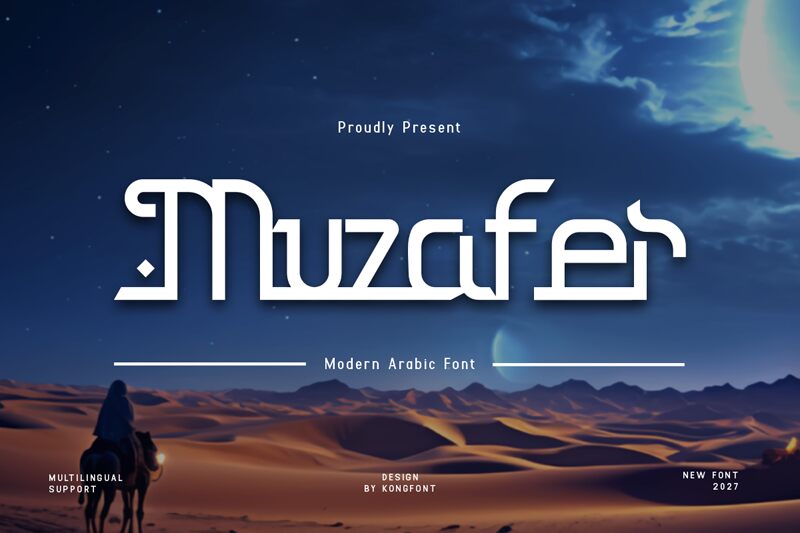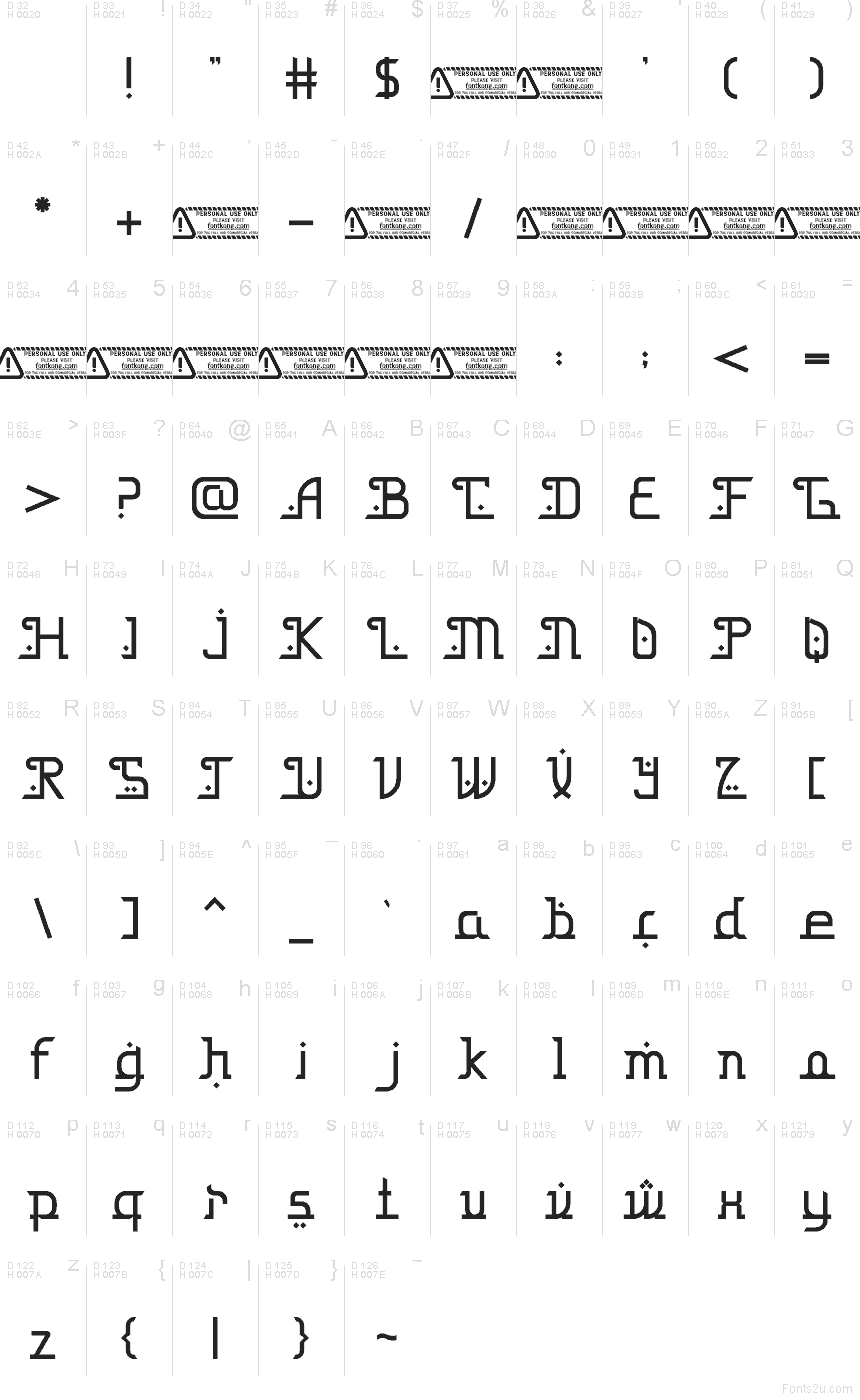
Muzafer font by Kong Font is a free faux Arabic foreign typeface that turns Latin letters into bold, calligraphic ribbons. Its blocky, interlocking strokes and hooked endings echo Middle Eastern signage, while the tight rhythm keeps words reading as strong, unified tiles. The result feels both ornamental and sturdy, like lettering carved into stone but drawn with a thick, inky marker.
Using Muzafer, you can instantly set the scene for hookah lounge branding, Middle Eastern restaurant logos, themed festival posters, game titles, packaging, or event invitations. This free font shines at larger sizes where its geometric curves and corners can really breathe; pair it with a clean geometric sans serif for menus, body copy, or supporting text to keep the overall design clear and readable.